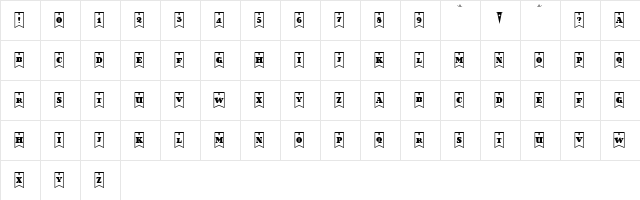
Happy Day at School Regular
Design Context for Happy Day at School Typeface
Happy Day at School is a composed and adaptable typeface that performs quietly and consistently across a wide range of design contexts.